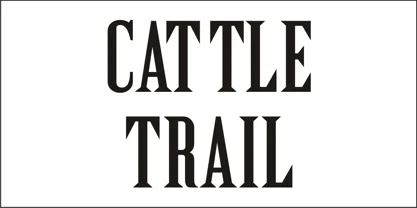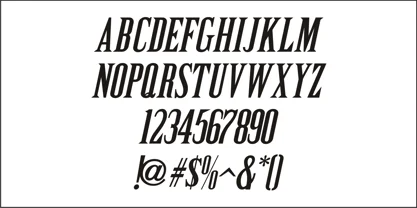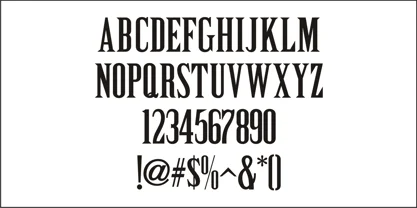
Cattle Trail JNL Font
When a design brief calls for both optical balance across all weights and immediate visual impact, type choices matter — Cattle Trail JNL answers that brief. The typeface brings a versatile sensibility to a broad range of creative disciplines, with refined proportions and careful stroke modulation that holds up whether the work is print-first or screen-first.
In practice, Cattle Trail JNL proves particularly effective for web design, editorial layouts, social media graphics, advertising campaigns, environmental graphics. Designers reaching for it find that the type decisions feel resolved rather than laboured — a useful quality when client timelines are tight.
The range of applications extends to packaging design, annual reports, brand identity systems, product labels. That breadth is deliberate: the proportions and spacing were stress-tested across a wide range of mock briefs before the typeface was finalised.
The consistent rhythm of Cattle Trail JNL across a full paragraph creates the kind of even grey value that makes extended reading comfortable, a detail that matters more in long-form content than its subtlety might suggest.
UX designers establishing typographic systems for digital products find Cattle Trail JNL a reliable choice for projects that demand both personality and restraint. The design avoids the self-conscious quirkiness that dates quickly, settling instead for considered distinctiveness that holds up over time.